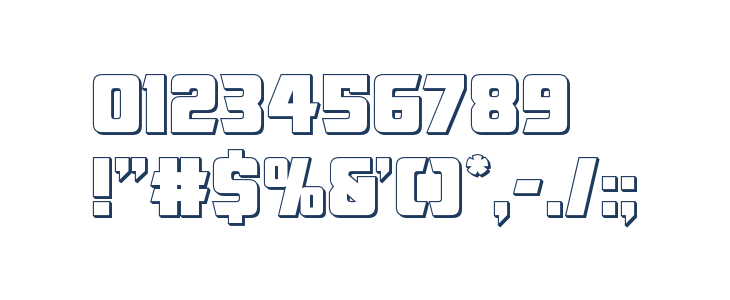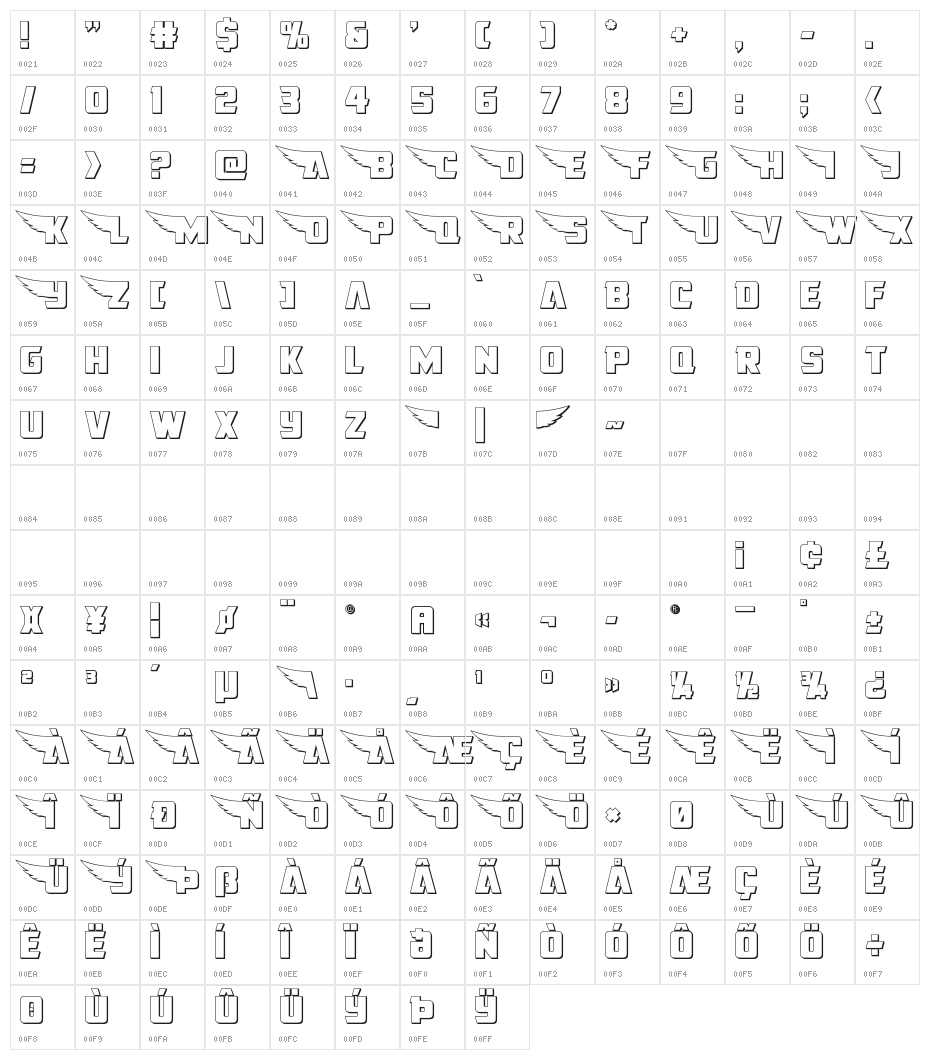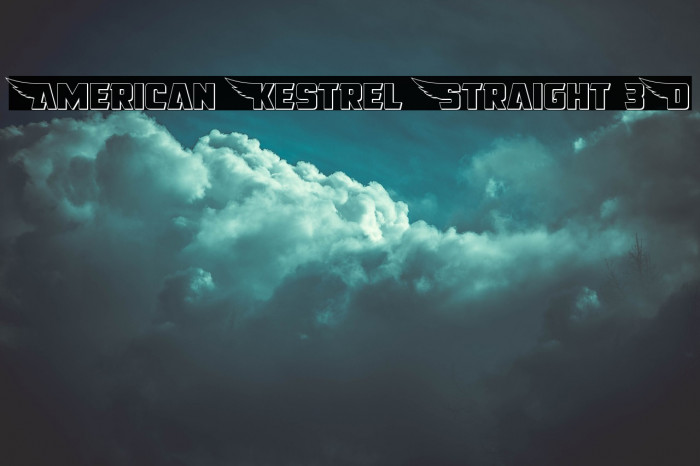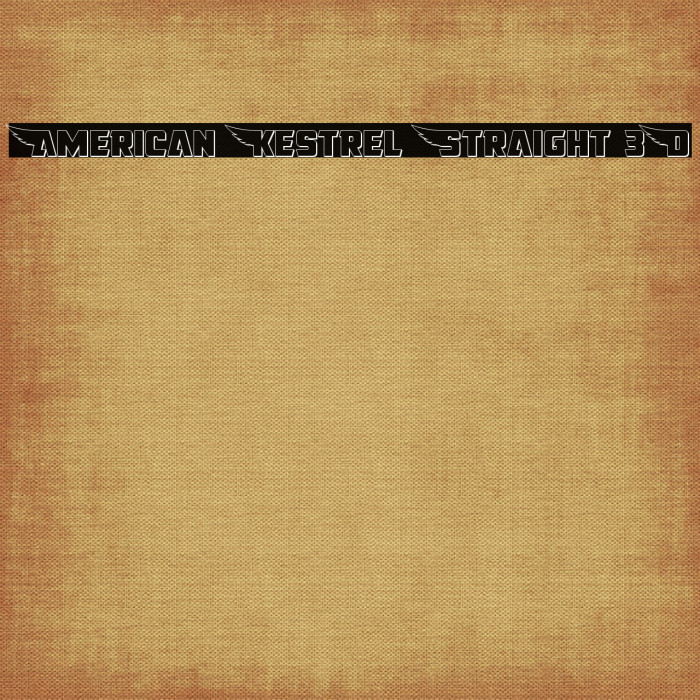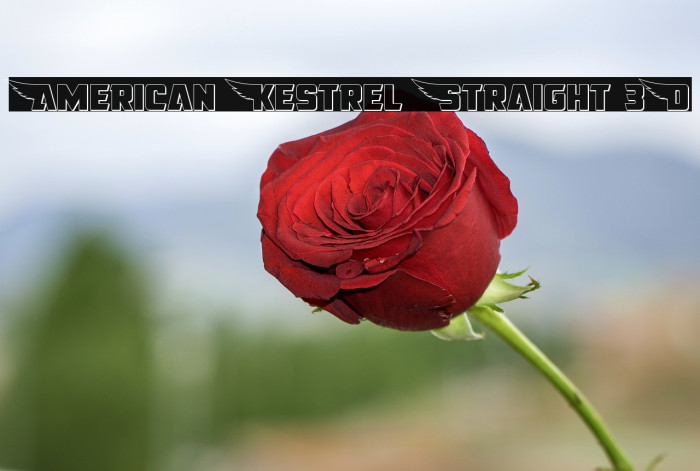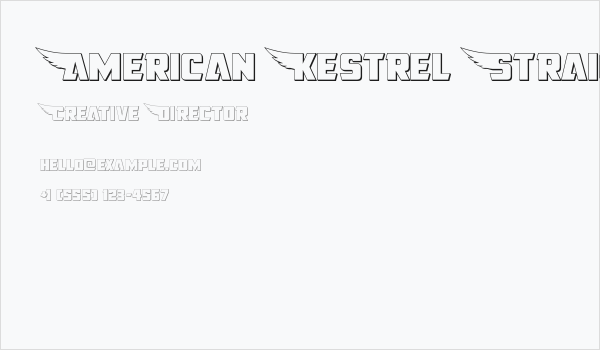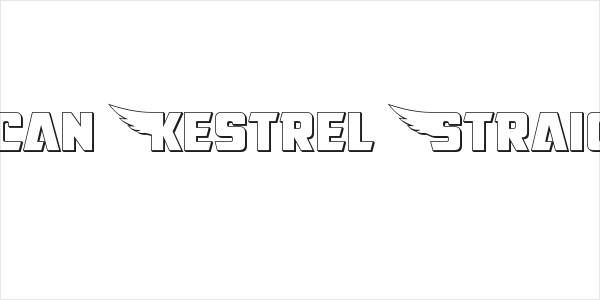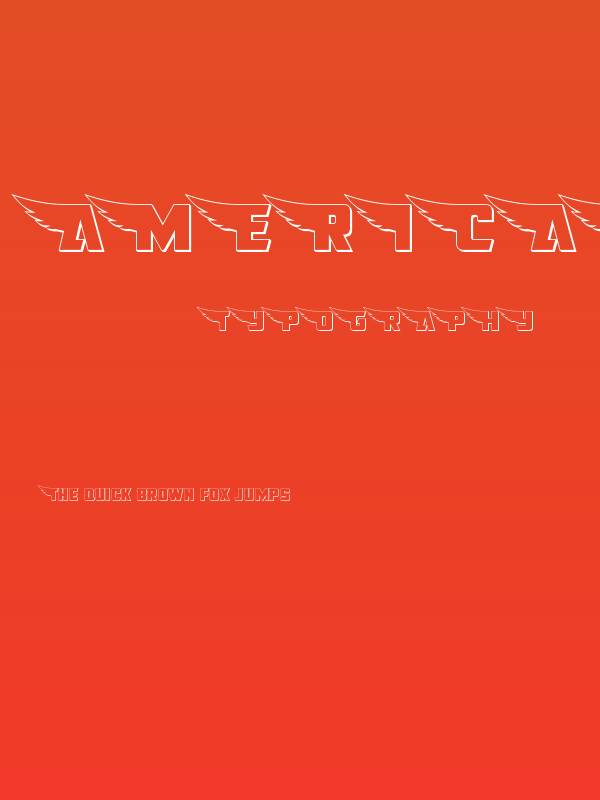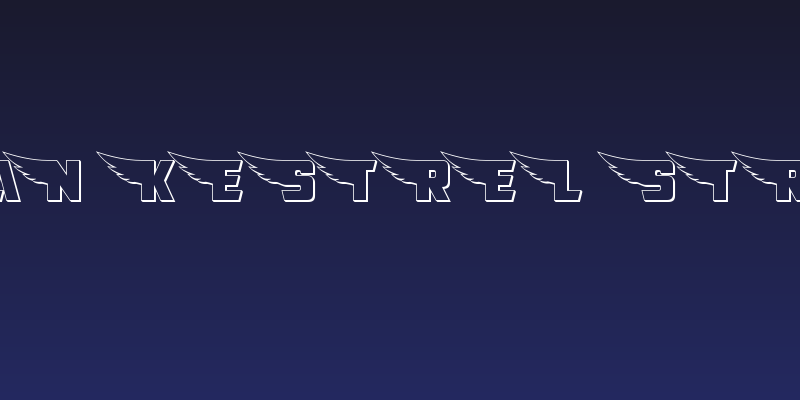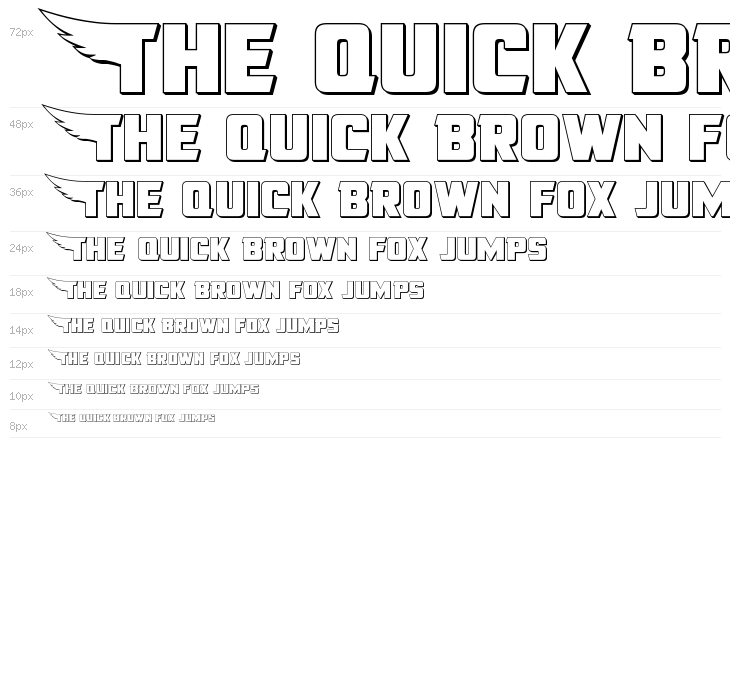
American Kestrel Straight 3D Font
American Kestrel Straight 3D Description
This font features a bold, geometric design with a 3D effect that gives it a dynamic and modern appearance. The uppercase letters are outlined, creating a sense of depth and dimension. The unique characteristic of this font is the wing-like extensions on the top left of each letter, adding a sense of motion and flair. The numbers and special characters maintain the same bold, outlined style, ensuring consistency across all glyphs. This font is particularly eye-catching and would stand out in any design project that requires a strong visual impact.
| Proposed Projects | Ideal for sports team logos, event posters, video game titles, and any project needing a bold, dynamic typeface. |